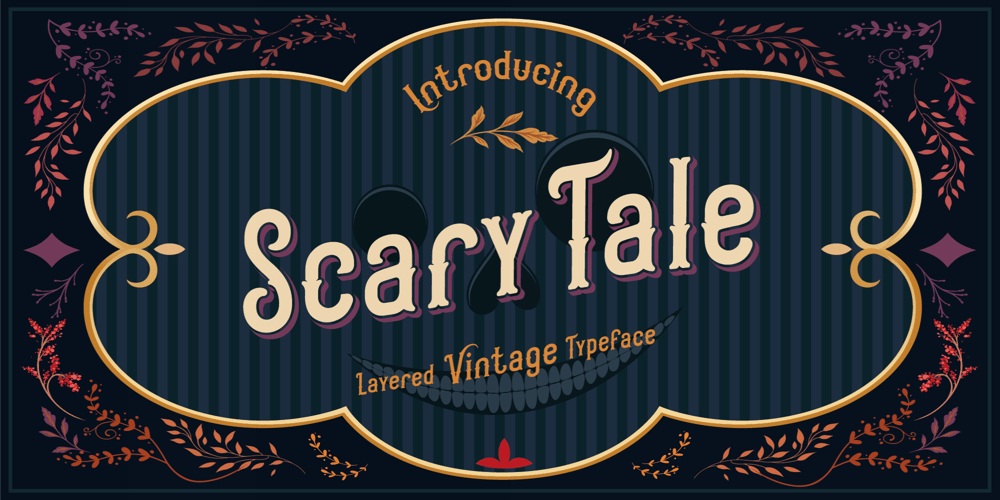
Scarytale
Scarytale font
Scarytale Font Family was designed by Evgeny Dneprovsky and published by Fractal Font Factory. Scarytale contains 2 styles and family package options. I present to your attention a new font – ScarytaleI had a desire to make a vintage style with a cute but scary story.It is a multi-layered, multilingual vintage typeface that works well for fabulous books, T-shirts and logos.